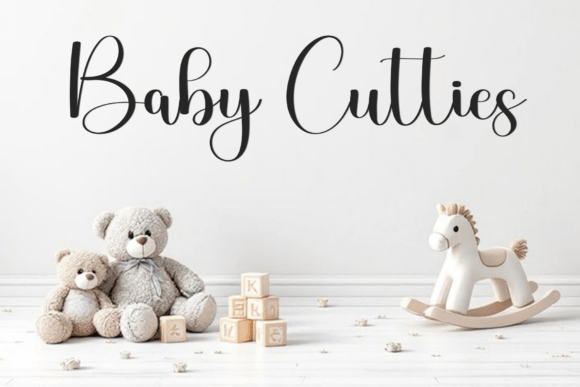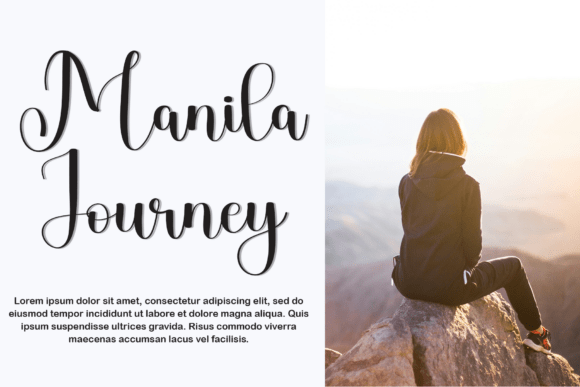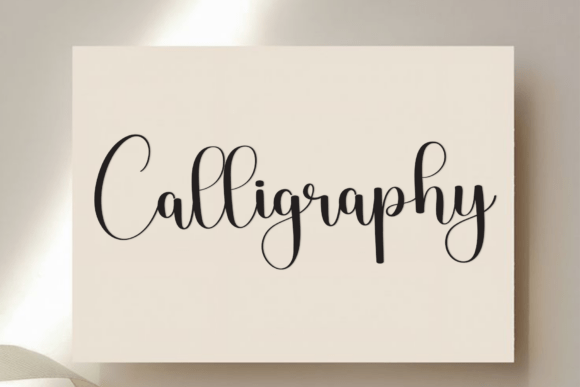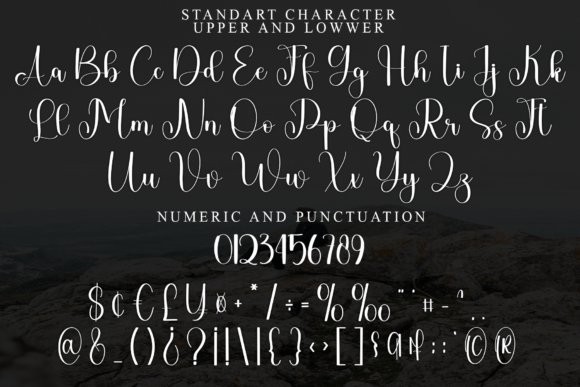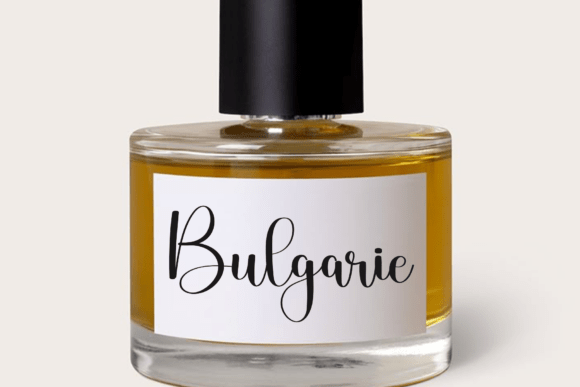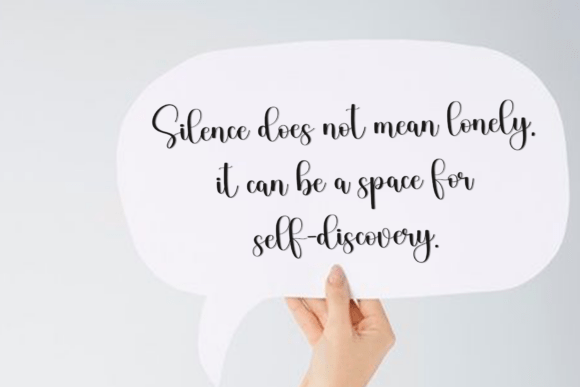
Step into the Elegant World of Ballerina Signature Font
Have you ever been in the midst of a creative project, pouring your heart and soul into the design, only to feel like something is missing? That’s when the perfect font comes into play. For those seeking a touch of sophistication and elegance, the Ballerina Signature Font is the ultimate solution. This refined and modern calligraphy font is designed to evoke a sense of poise and refinement, making it perfect for wedding stationery, luxury branding, and signature-style designs.
As a designer, you understand the importance of a well-chosen font in elevating your work. The Ballerina Signature Font is a valuable addition to any design toolkit, offering a unique blend of style and charm that is sure to leave a lasting impression. With its delicate strokes and flowing rhythm, this font is perfect for creating beautiful, one-of-a-kind designs that reflect your personal style.
Ballerina Signature Font Key Features
- Unique Characteristics: The Ballerina Signature Font features elegant, flowing lines, and a touch of whimsy, making it perfect for use in creative projects, such as invitations, greeting cards, and artwork.
Ballerina Signature Font Review
Overall, I’d say the Ballerina Signature Font is a solid choice for those looking for a feminine and elegant font. ✨ The flowing curves and delicate lines make it perfect for designs that require a touch of sophistication. I particularly love how it works well in titles and headings, adding a sense of drama and flair to any layout.
One of the standout features of this font is its versatility. ✨ It can be used in a wide range of projects, from wedding invitations to fashion magazines, and still manage to look stylish and on-trend. The font also includes a range of ligatures and swashes, which can be used to add an extra layer of personality to your designs.
- ⚠️ Limited character set: While the font includes a range of ligatures and swashes, the actual character set is somewhat limited, which can make it tricky to use in certain situations.
- ⚠️ Not ideal for body text: While the font works well in titles and headings, it can be a bit difficult to read in large blocks of body text, which can make it less suitable for certain types of projects.
Overall, I’d give the Ballerina Signature Font 4 out of 5 stars. While it has some limitations, its unique style and versatility make it a great choice for designers looking to add a touch of elegance to their work.
For optimal results, use the Ballerina Signature Font for designs that require a delicate and feminine touch, such as:
- Baby shower invitations and decorations
Q: Can I customize the Ballerina Signature Font to fit my specific design needs?
Yes, the Ballerina Signature Font is highly customizable. It includes a wide range of OpenType features, such as ligatures, swashes, and ornaments, which can be used to create unique and custom designs. Additionally, the font’s variable font format allows for fine-grained control over